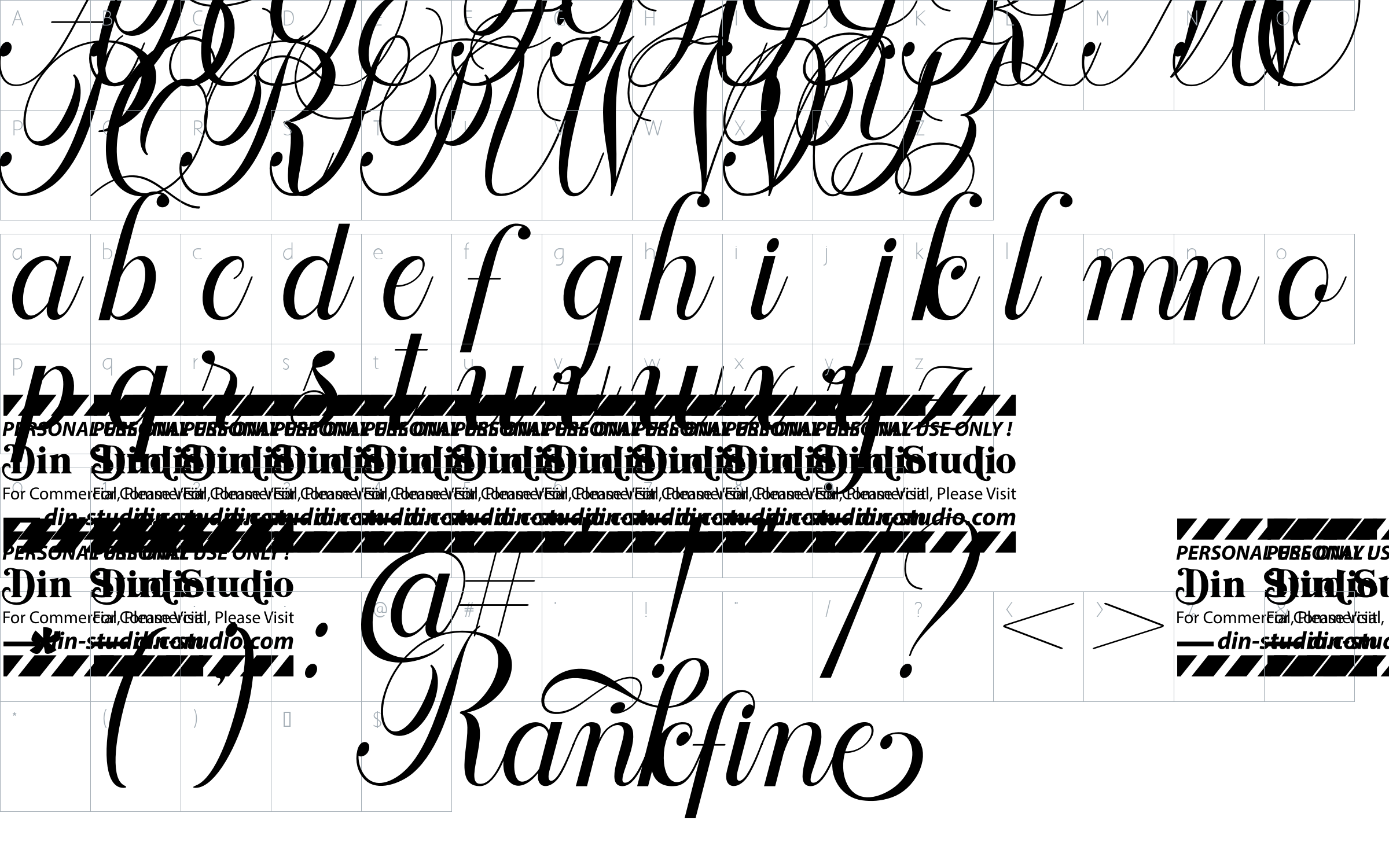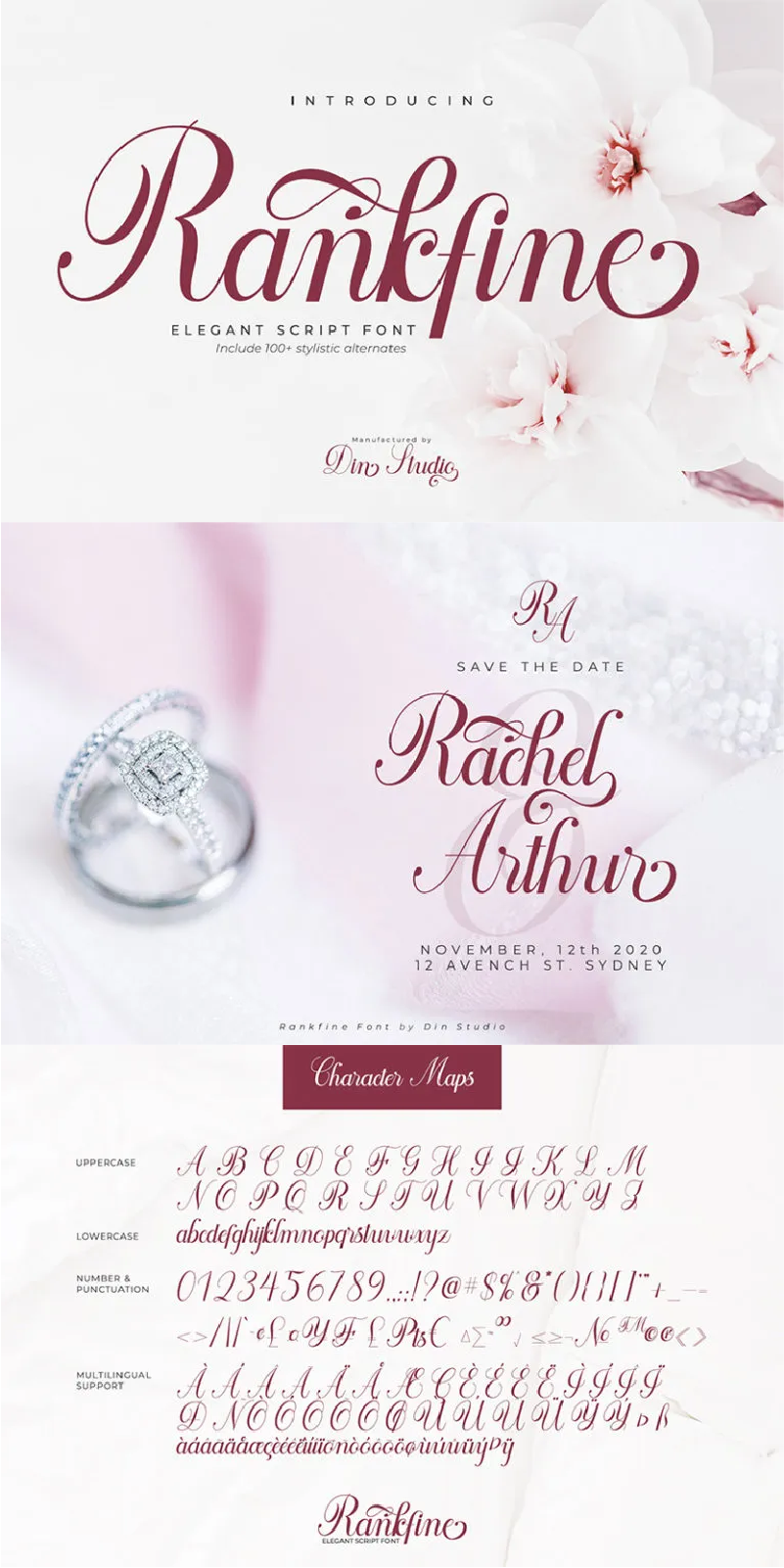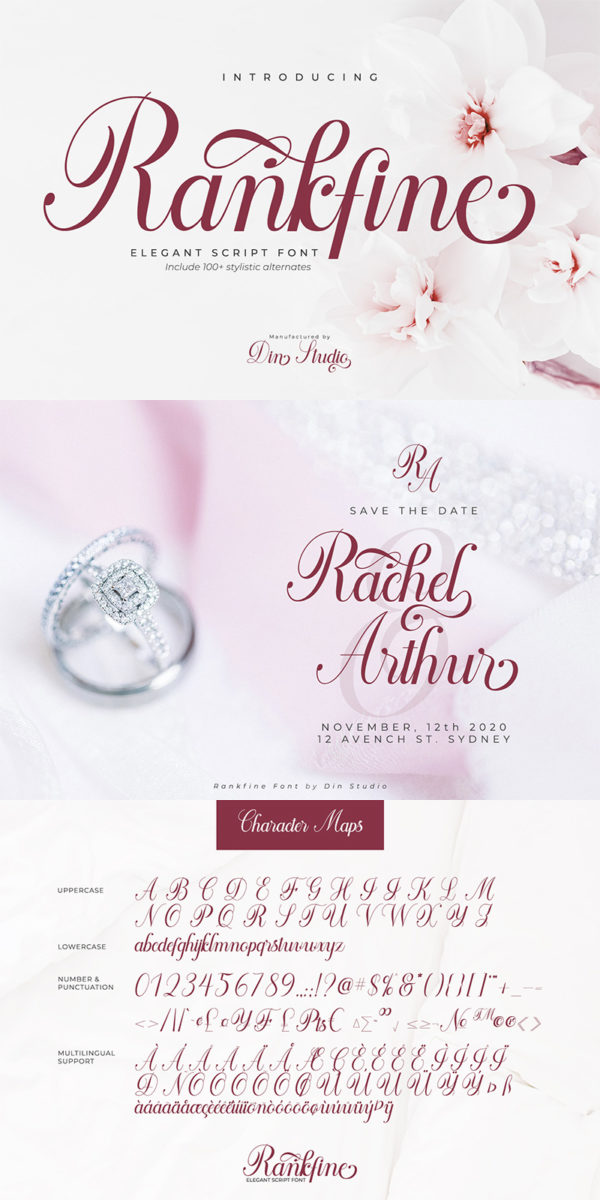
Rankfine Font
About Rankfine
Rankfine is an elegant calligraphy font with natural and handwritten style. It brings a modern and attractive typeface. Made for any professional project branding. It is the best for logos, branding, wedding and quotes. See the previews above to get some inspiration on how you can use them. Happy Designing!